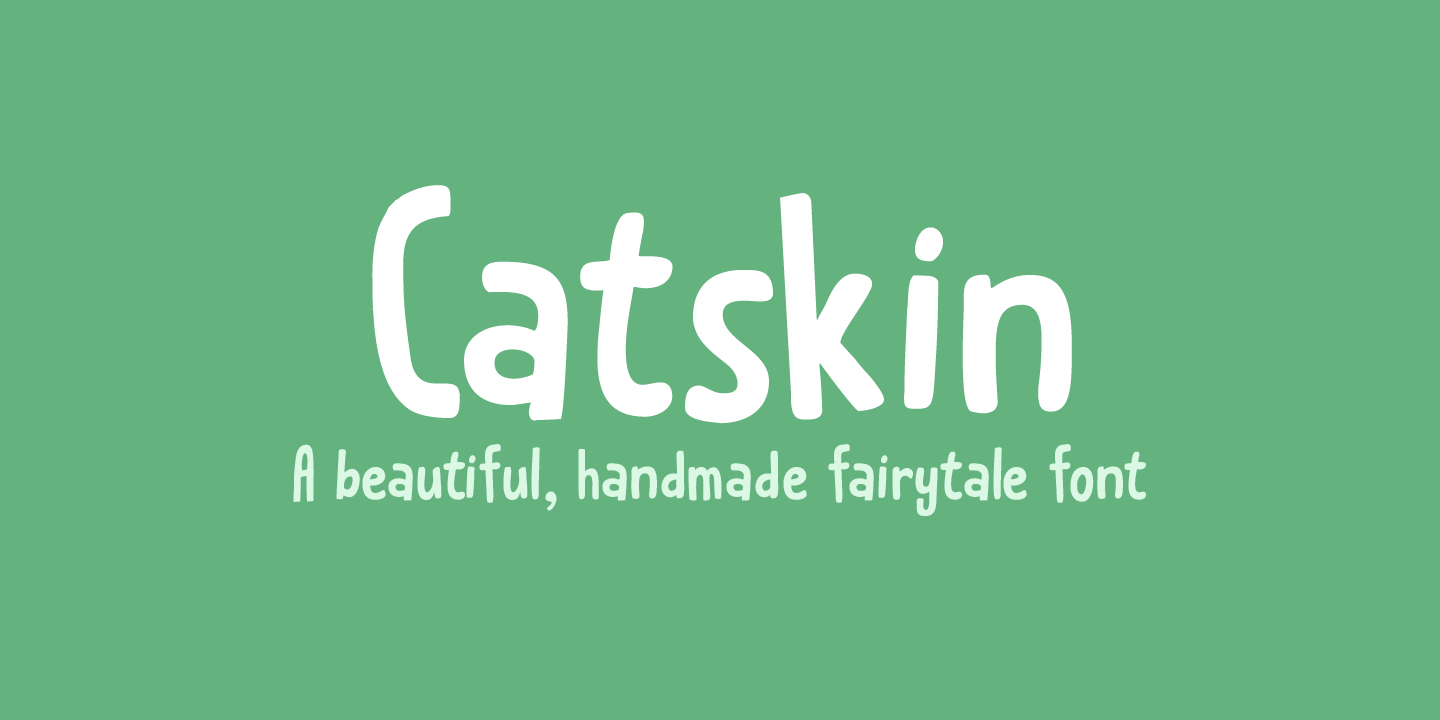
Catskin Font is perfect for pet boutique branding, feline veterinary clinics, cat café signage, playful animal shelter promotions, whimsical pet product packaging, cute kitten photography studios, feline-themed children's books, and charming cat lover community campaigns.
This font is exciting because it embodies feline grace with playful elegance and cat-like sophistication. Catskin Font features smooth letterforms with whisker-inspired curves that capture the essence of feline agility and mysterious cat charm, making it ideal for projects that require authentic feline character and playful appeal.
The Catskin Font family includes regular, light, bold, and playful variants, along with cat-inspired alternates and feline ligatures that enhance its whimsical character. Each weight maintains the font's graceful aesthetic while providing different levels of feline expression for various pet and animal design applications.
Whether you're developing adorable pet brands, creating compelling feline materials, or designing charming cat lover campaigns, Catskin Font Free Download delivers exceptional grace and feline appeal. Its distinctive cat-inspired style makes it an excellent choice for designers seeking to add genuine feline charm and playful sophistication to their projects. The font's versatility extends from pet store branding to cat rescue organization materials, ensuring consistent performance across all feline applications. With its gracefully crafted letterforms and cat proportions, this typeface provides professional results that delight cat lovers and establish charming brand presence with its unmistakable feline character and playful cat elegance.